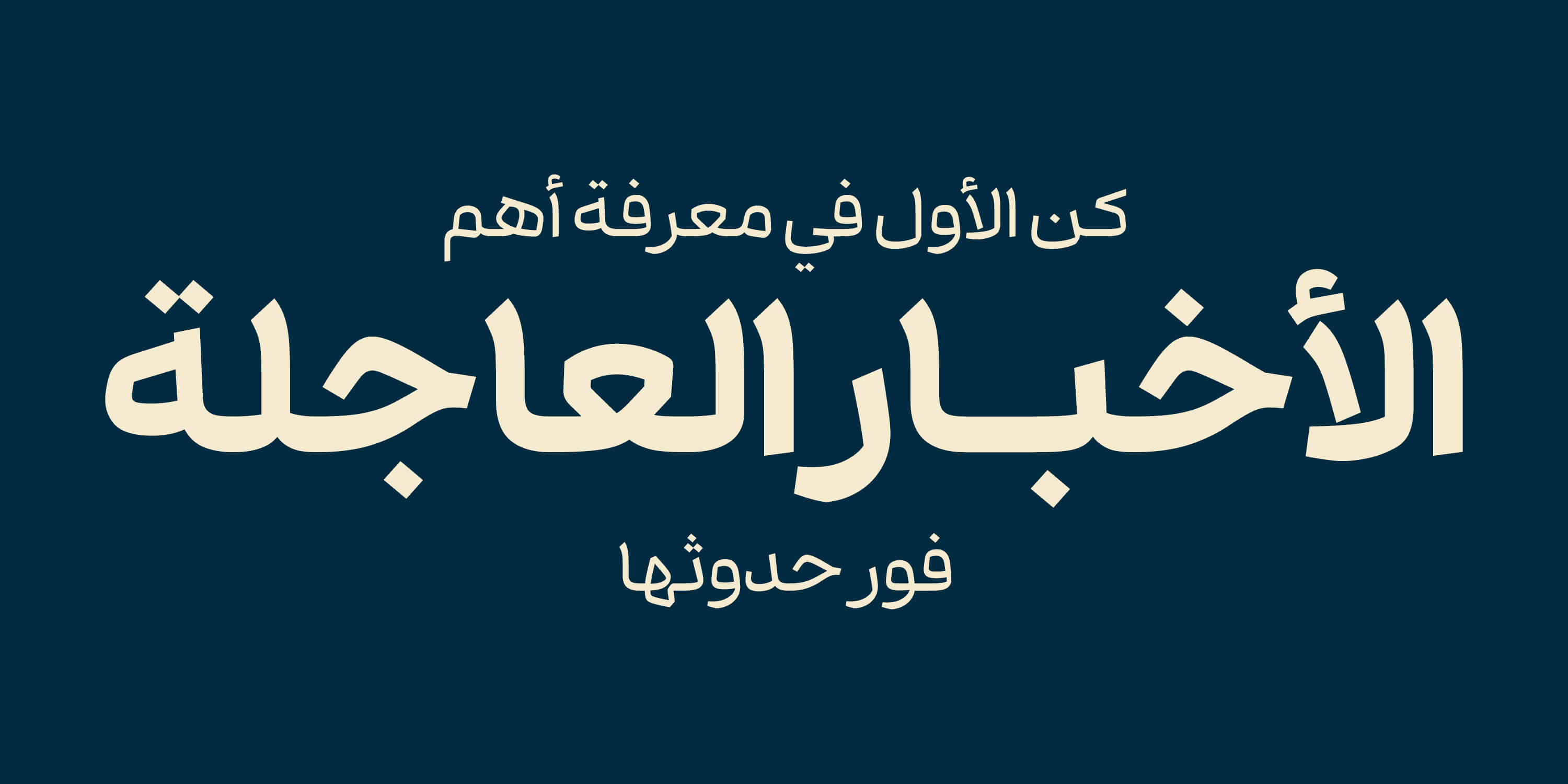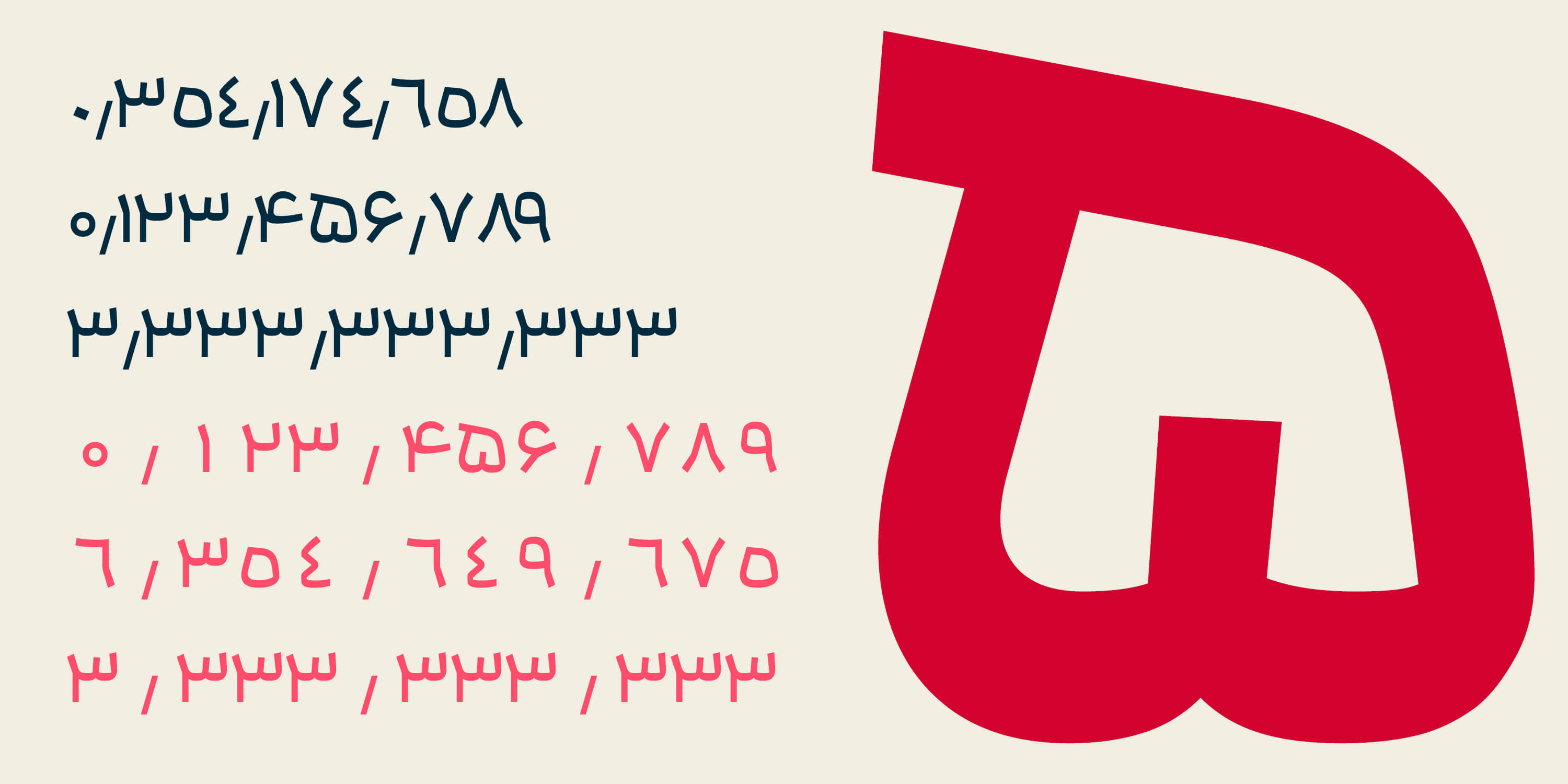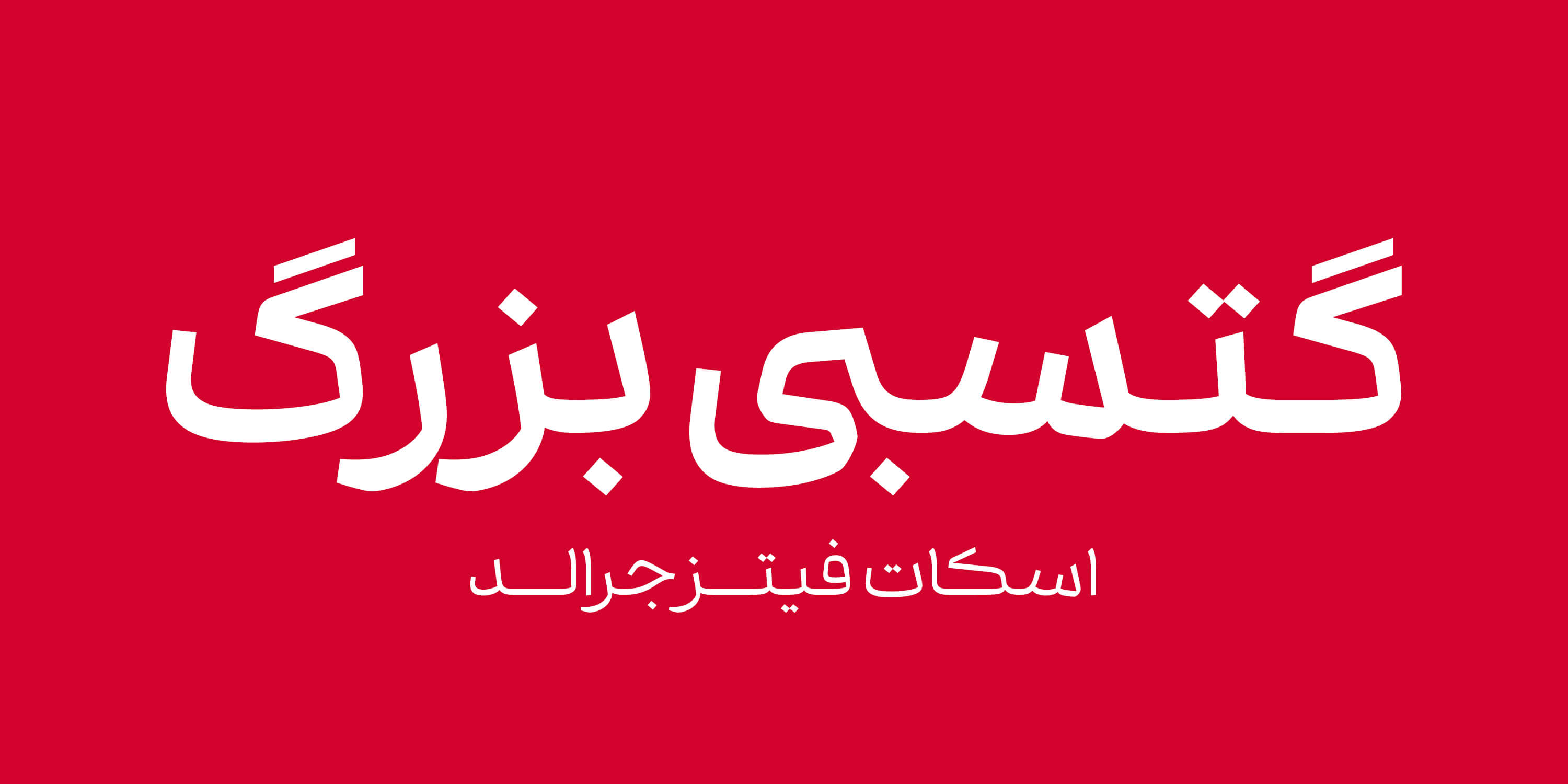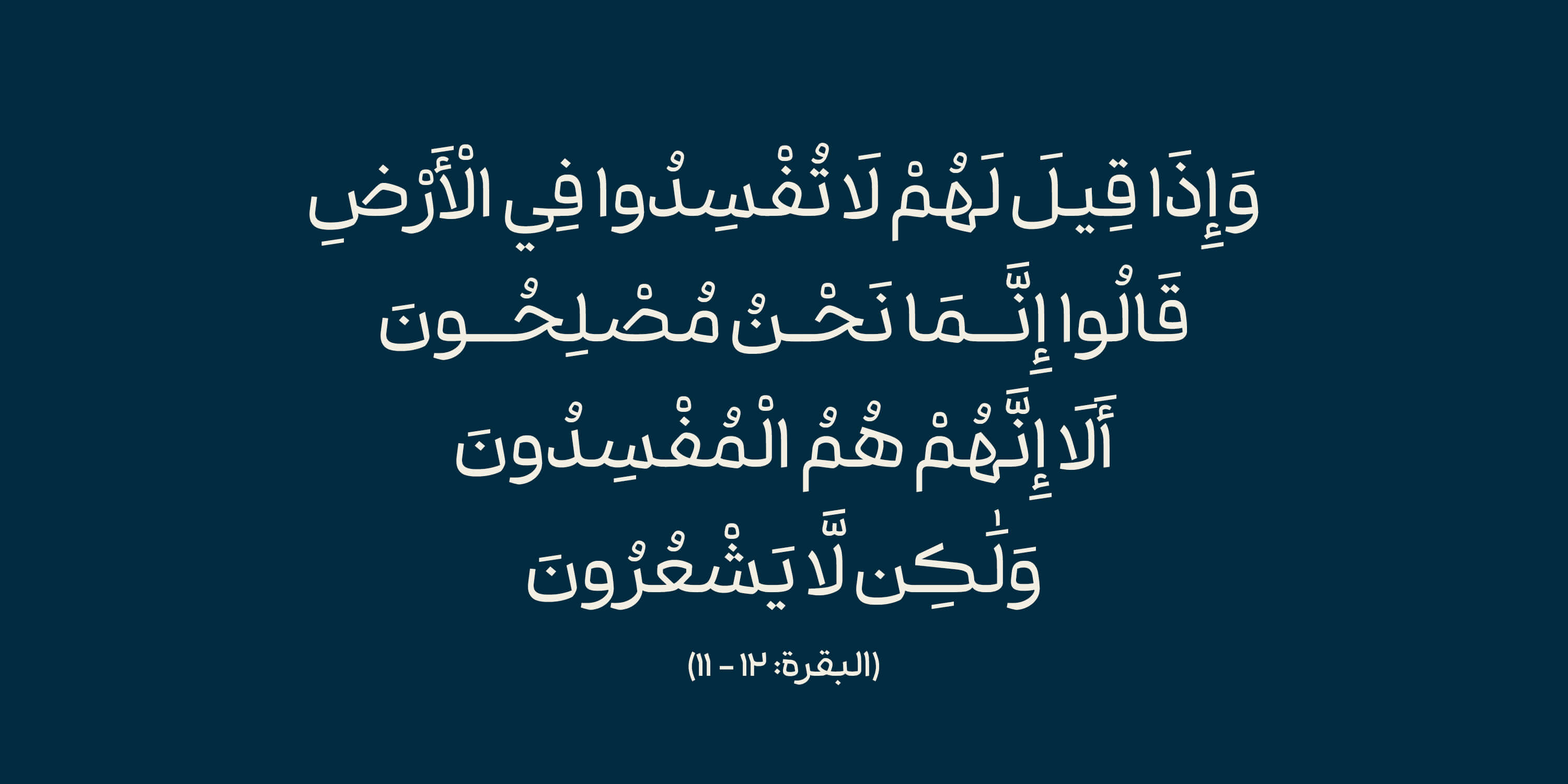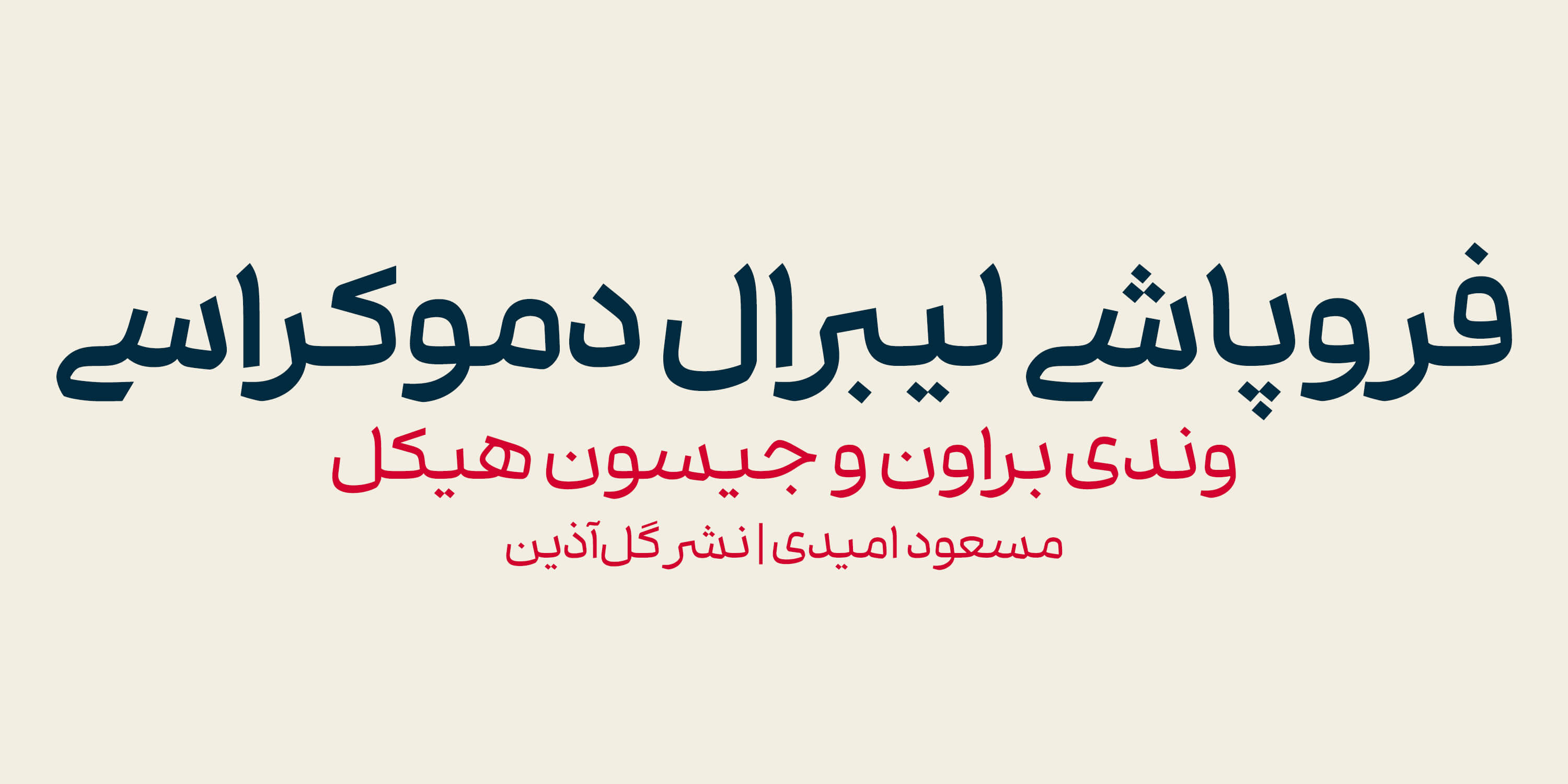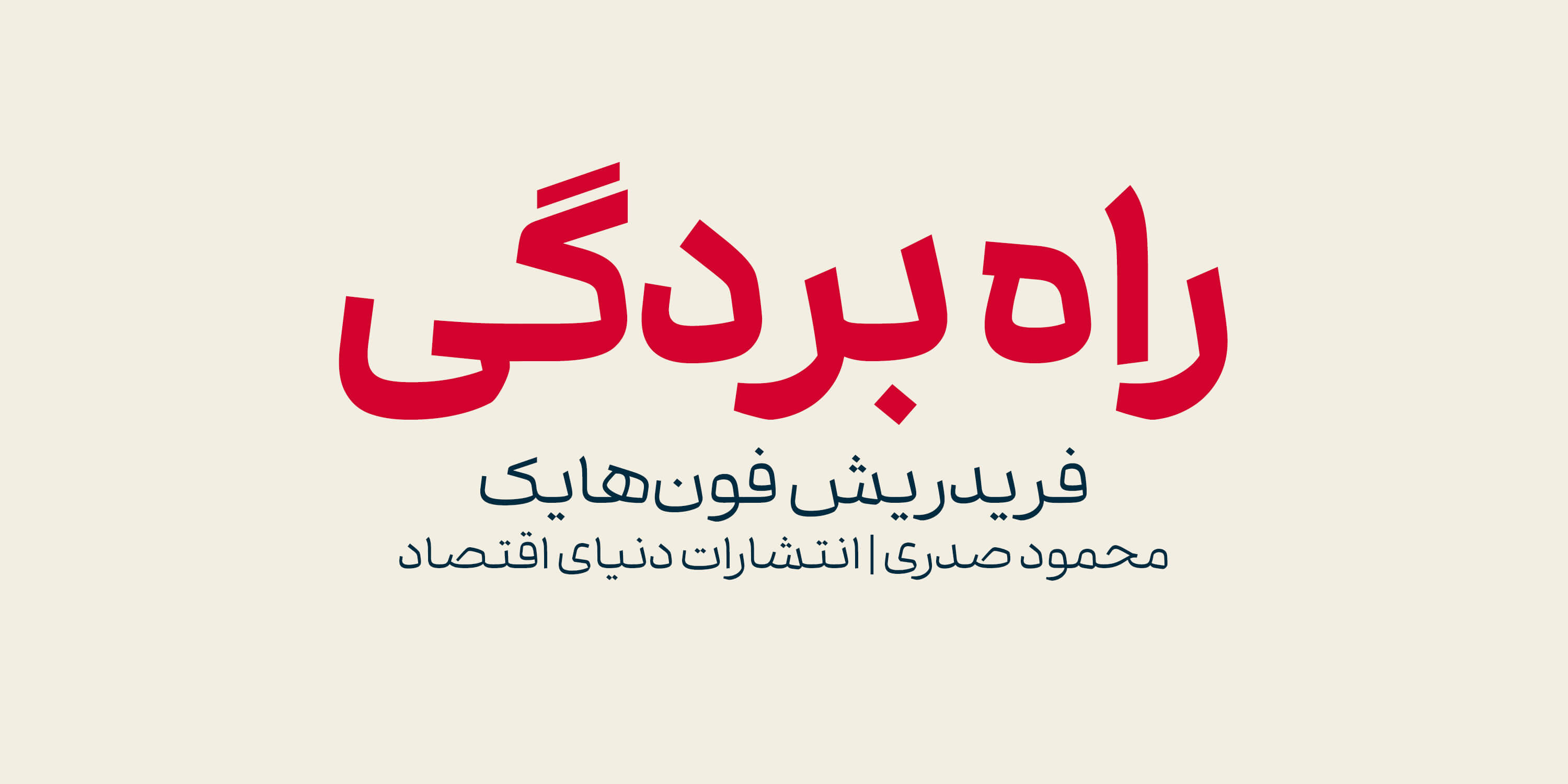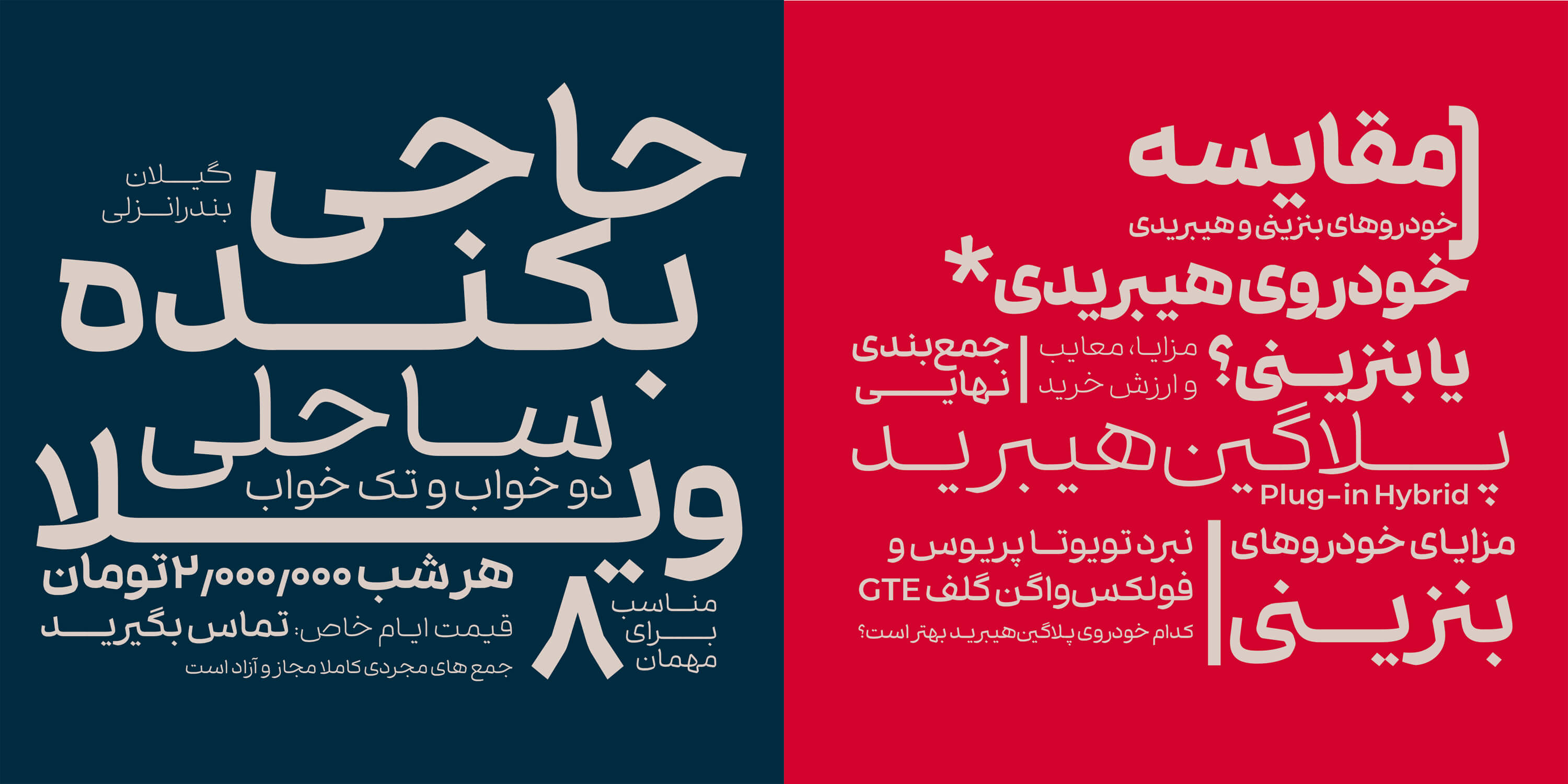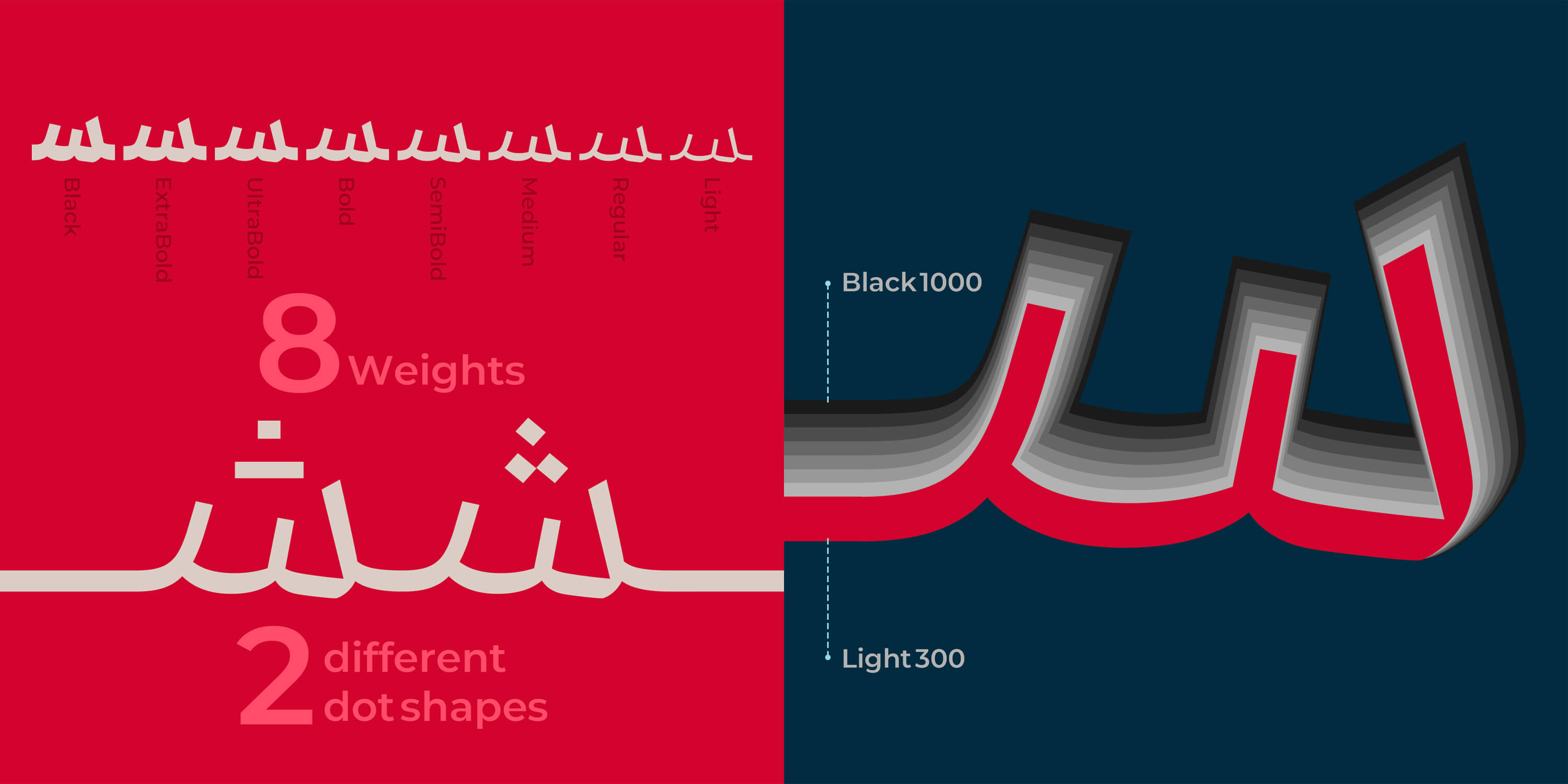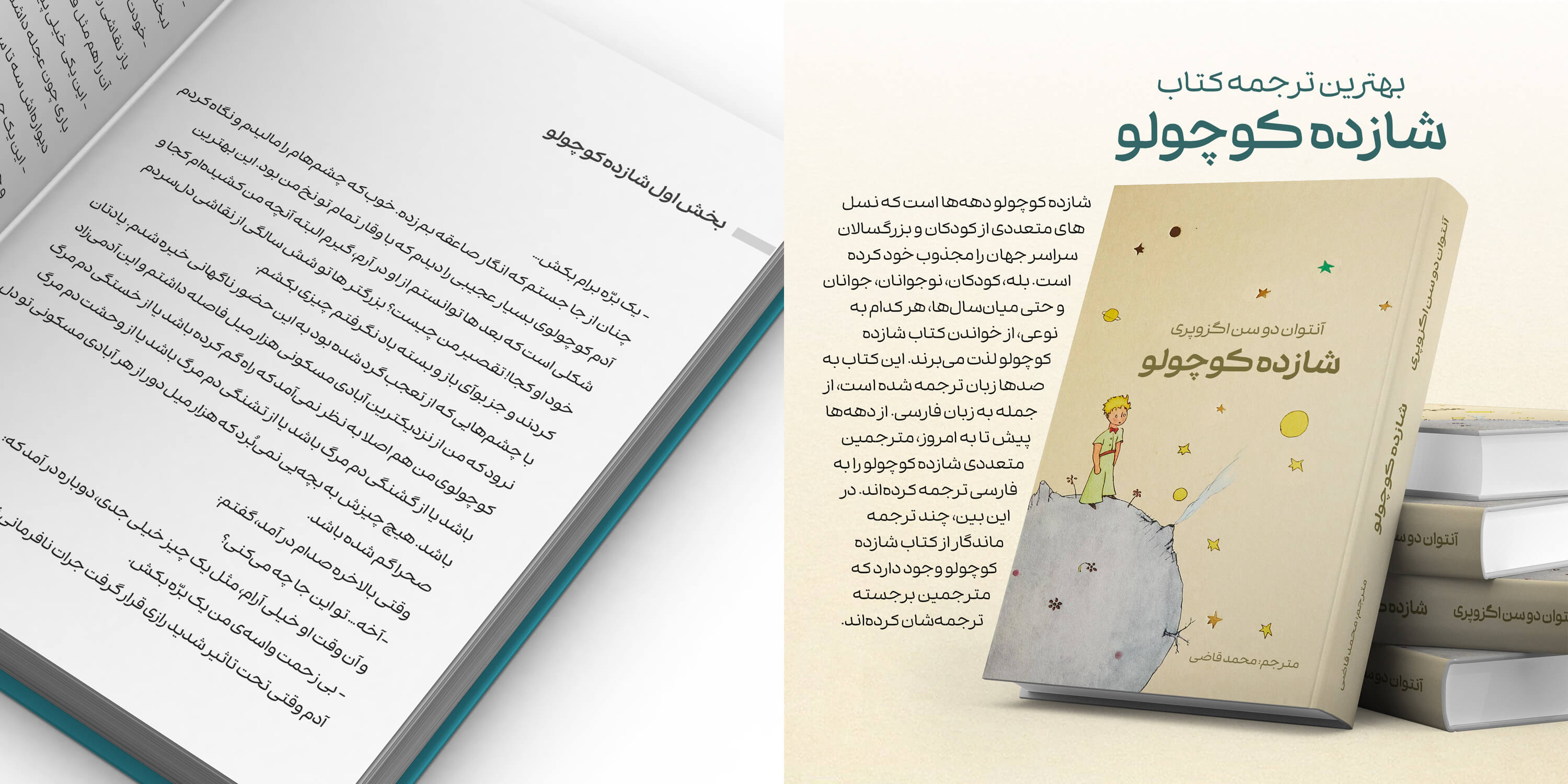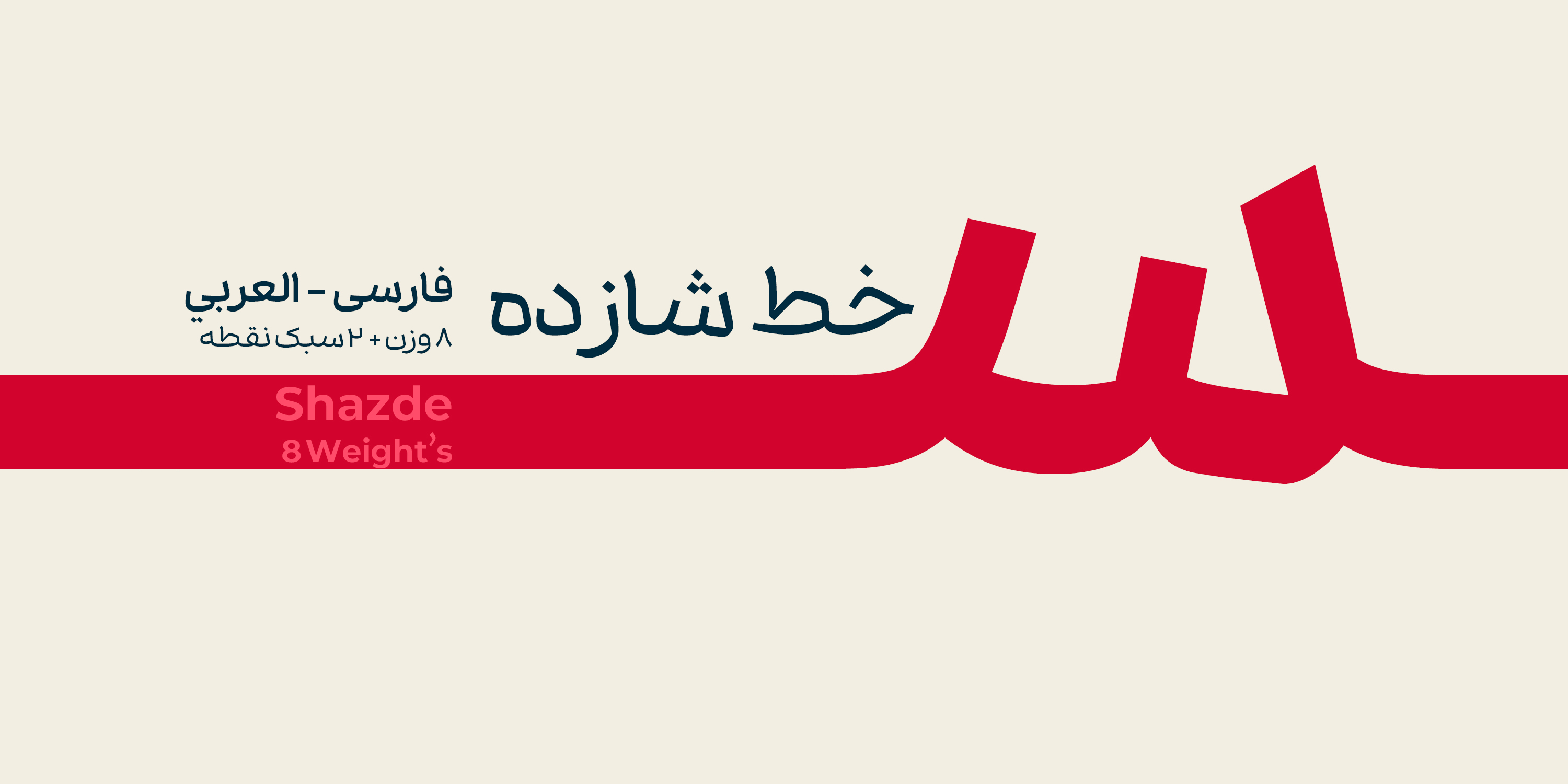
Shazde
8 weights, 2 Dot styles
Shazde is a modern Arabic typeface, purpose-built for digital environments. From the ground up, it has been optimized for clarity, readability, and high performance across platforms such as websites, user interfaces, mobile apps, and long-form content. Even at very small sizes, Shazde retains excellent visual sharpness, delivering a smooth and accessible reading experience.
In its design, ascender letters like Alef and Lam have been intentionally shortened and refined to reduce vertical space and create a more compact text block — without sacrificing legibility. This approach enhances readability in high-density layouts and on screens with limited space.
The overall structure of the letters follows a near-monoline aesthetic, balancing gentle curves with precise geometric rhythm, subtly informed by the traditional Naskh script. Each glyph is carefully aligned within its designated square, ensuring consistent and harmonious text alignment in grid-based systems.
As a result, Shazde performs exceptionally well in both small sizes and extended text settings. Whether used in UI design, digital publishing, or responsive layouts, it maintains a structured, cohesive, and modern presence. Its seamless integration of contemporary aesthetics with classical Arabic–Persian proportions makes it a reliable choice for designers, developers, and typographers working across digital platforms.